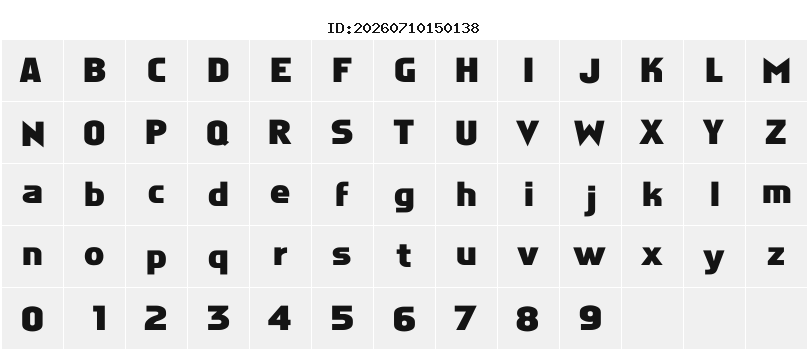
Faktos Wide Preview
• Font Name: Faktos Wide
• Full Font Name: Faktos Wide
About Faktos Wide.ttf
Faktos Wide.ttf is a modern, elegant sans-serif font designed for ultimate readability and visual harmony. Perfect for branding, headlines, web design, and print materials.